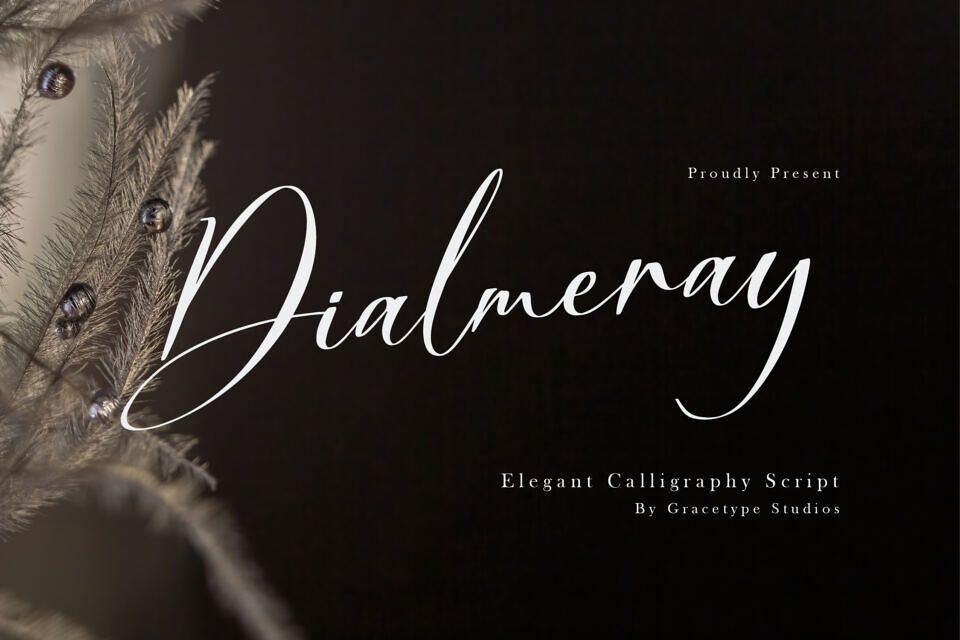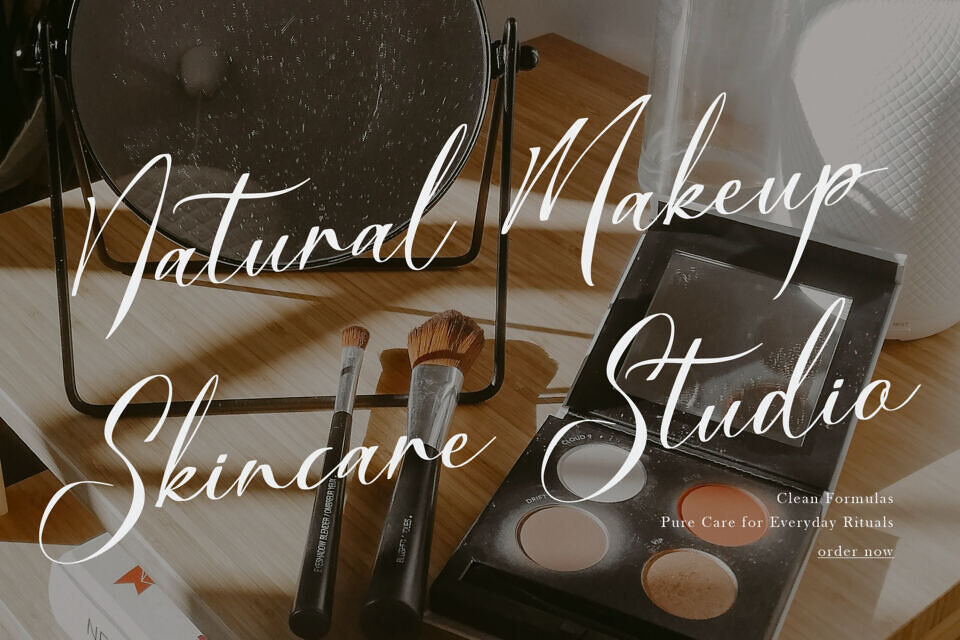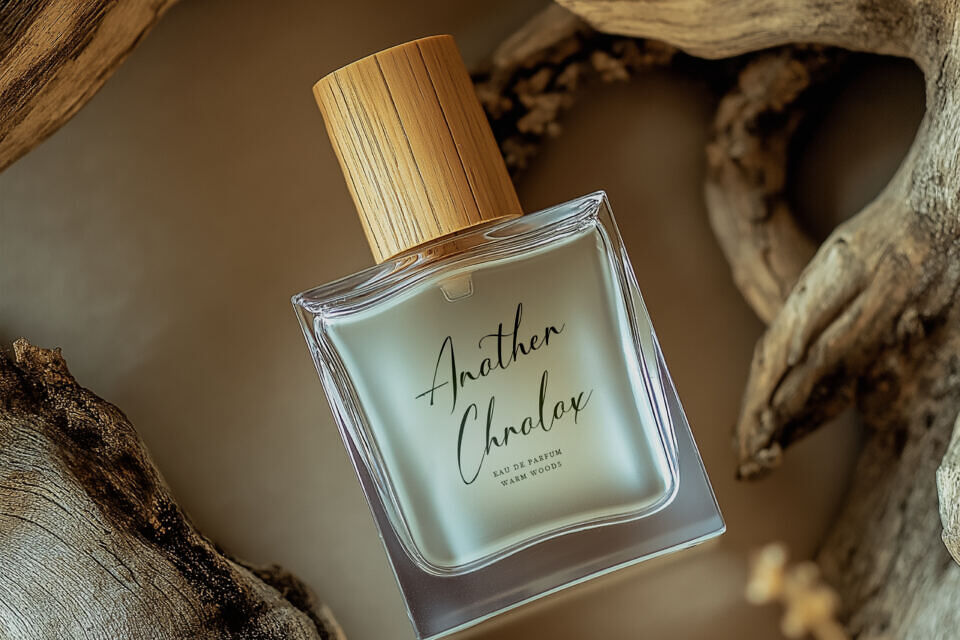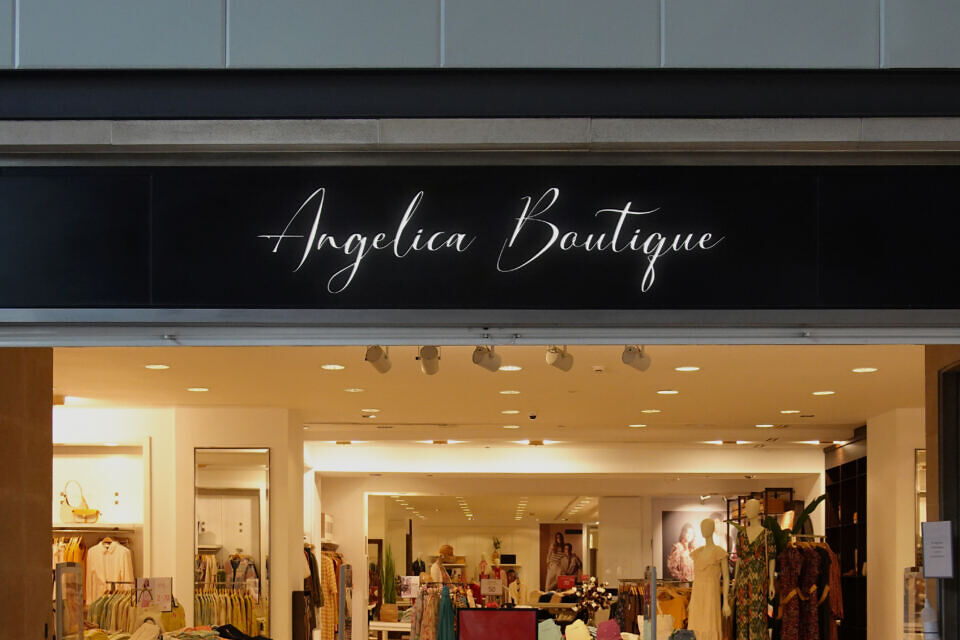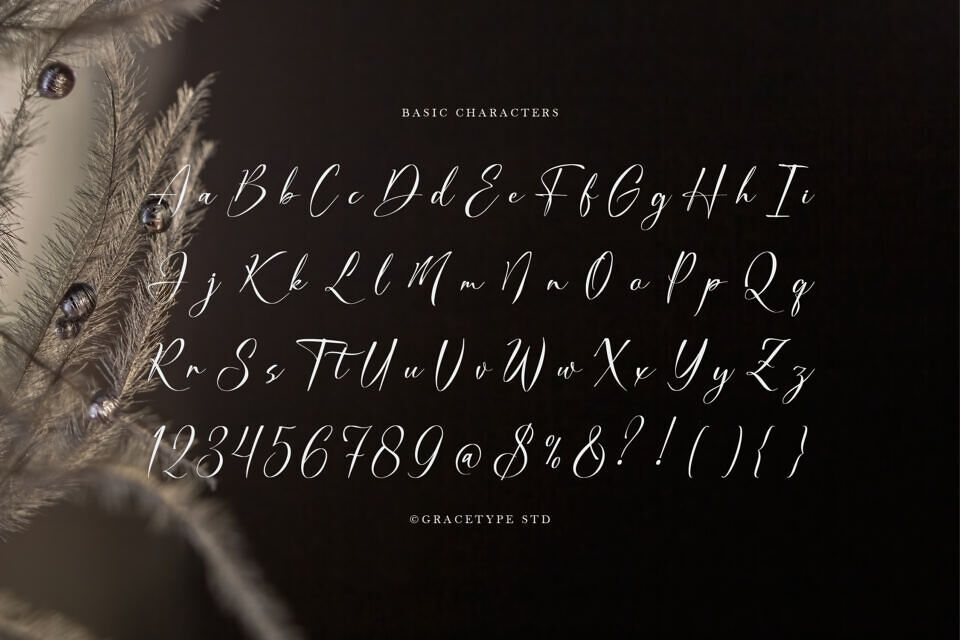
Dialmeray Font
Exude sophistication and grace with Dialmeray font, a stunningly elegant calligraphy script designed for high-end luxury. With its fluid, sweeping strokes and delicate ligatures, this typeface captures the essence of handmade ink-on-paper artistry.
The Dialmeray typeface is an ideal companion for wedding stationery, feminine branding, or luxury packaging where a personal, human touch is required. By pairing the Dialmeray font with a light, airy serif, you can create a balanced layout that feels both timeless and modern.